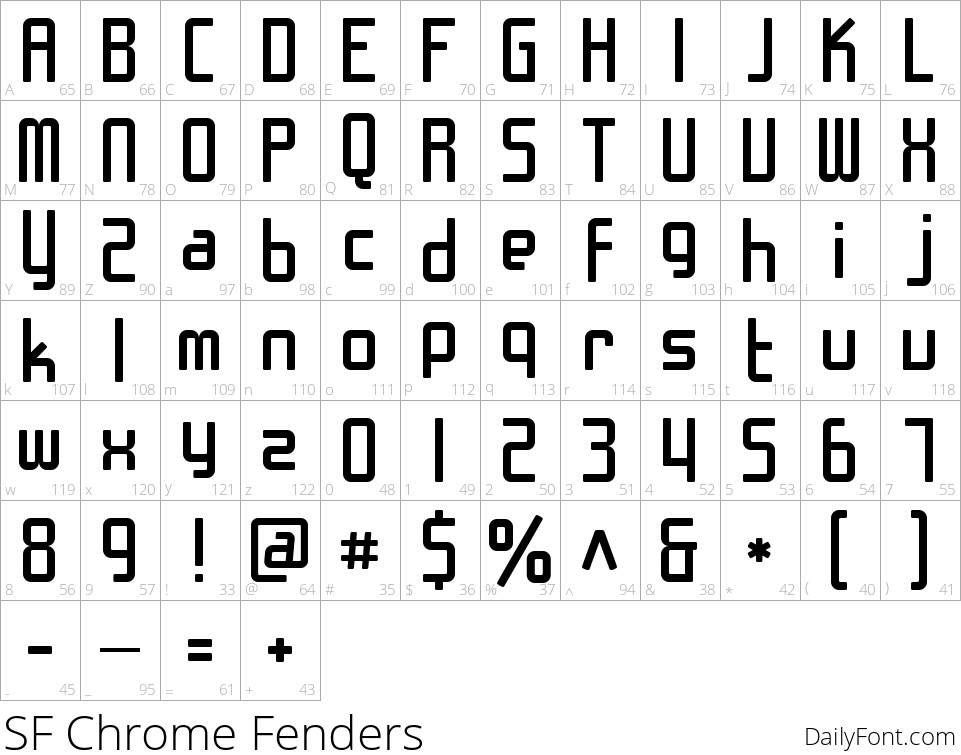
SF Chrome Fenders
Tall, clean geometric sans with a sleek automotive feel
SF Chrome Fenders keeps its geometry simple - even strokes, consistent rounded corners, nothing sharp or decorative getting in the way. That plainness makes it a flexible, general-purpose logo font, though the smooth curves give it a faint automotive, chrome-fender polish that suits car and product branding especially well.